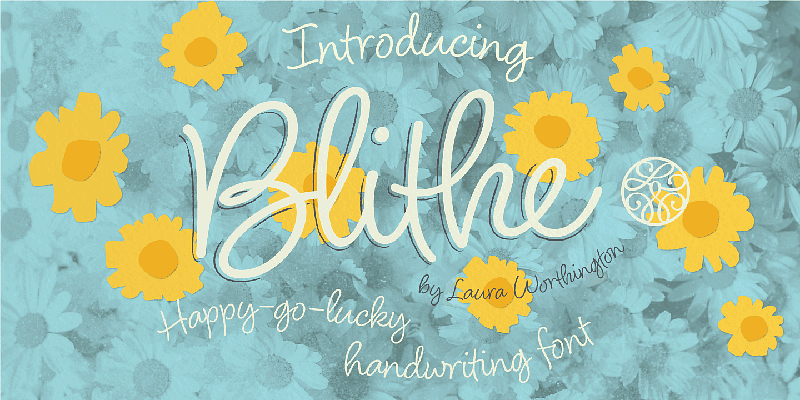
Blithe Font Free Download is a charming and modern handwritten script typeface with a playful and inviting character. Featuring smooth curves and lively strokes, this font is perfect for a variety of creative projects such as branding, wedding invitations, quotes, social media graphics, and any design requiring a fun, personal touch.
Blithe Font Free Download combines the warmth of calligraphy with a contemporary twist, making it both elegant and approachable. Its fluid, natural forms add a unique personality to your typography, while maintaining legibility and style.
Whether you're designing for lifestyle brands, event promotions, or creative portfolios, Blithe brings a youthful, friendly vibe to your projects.